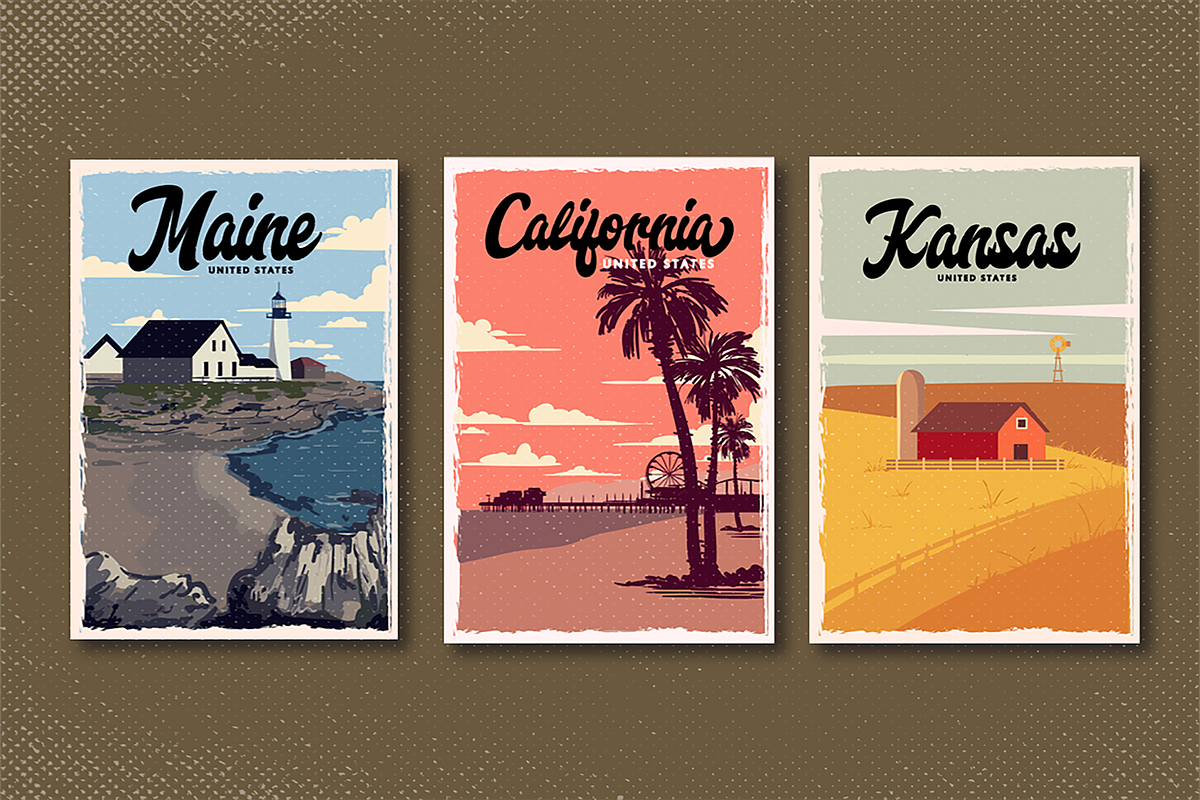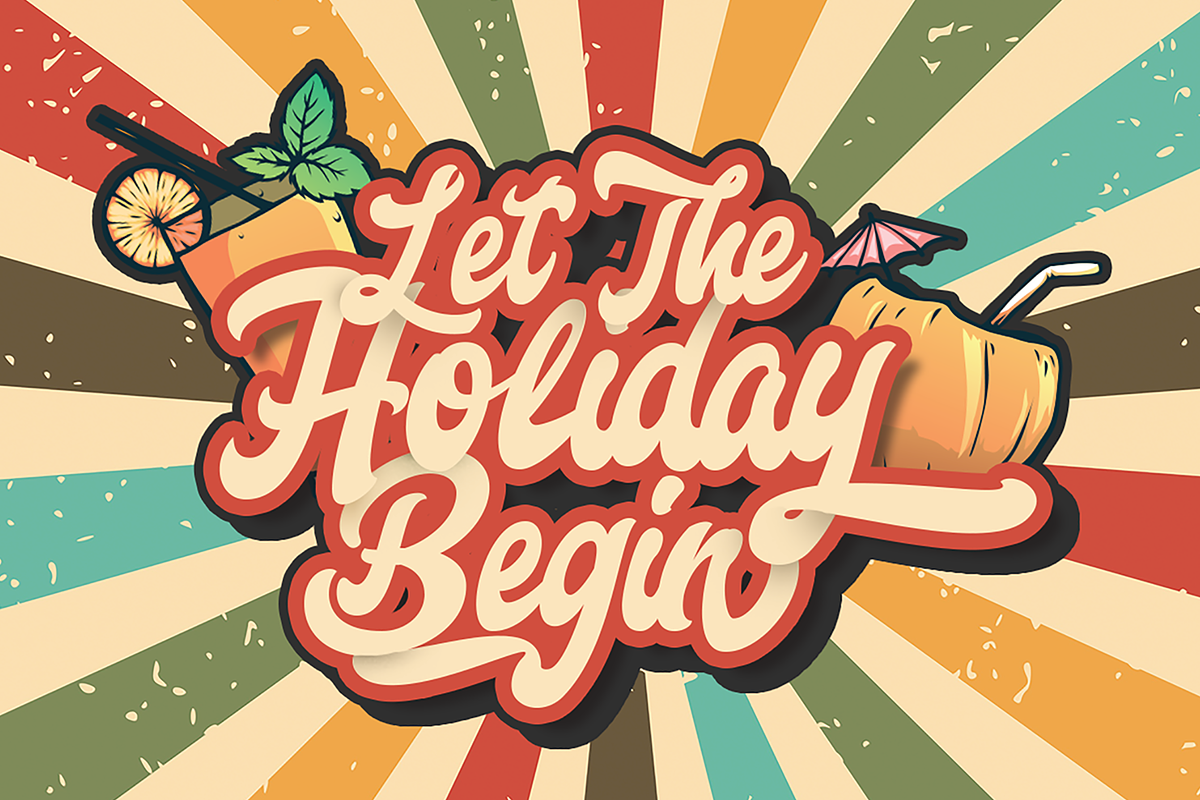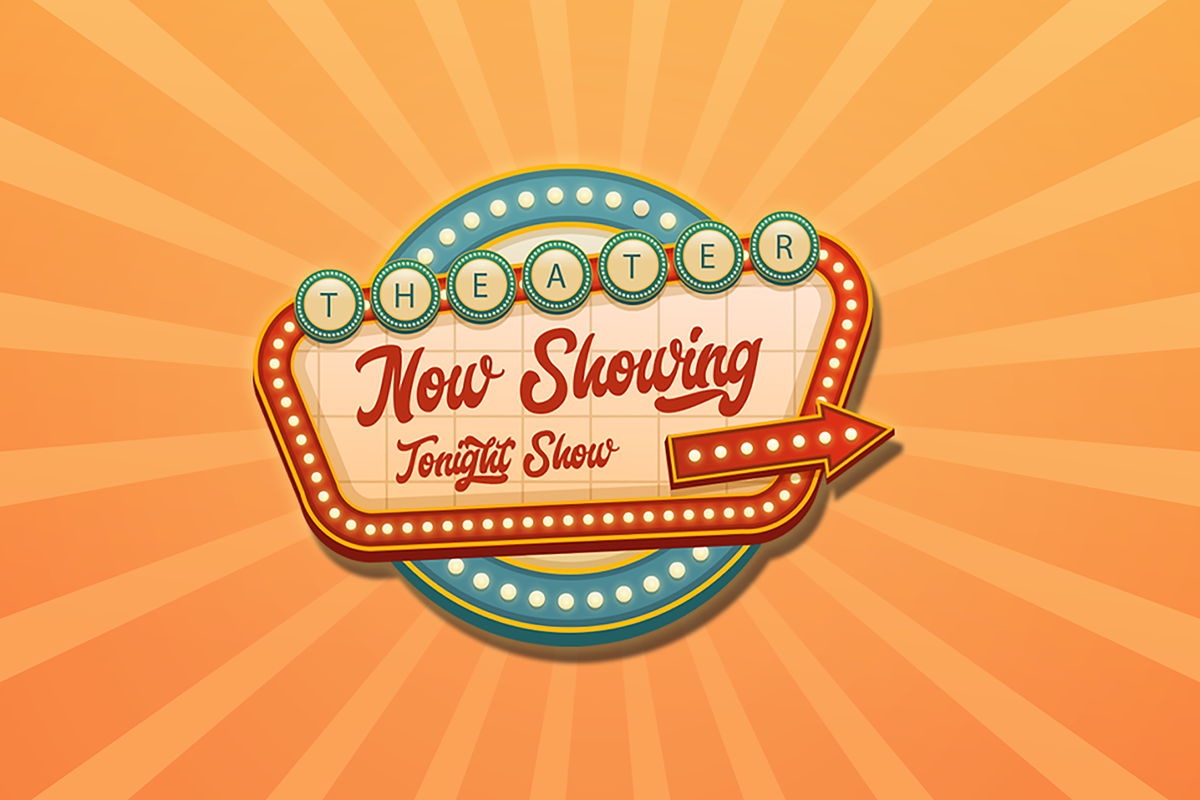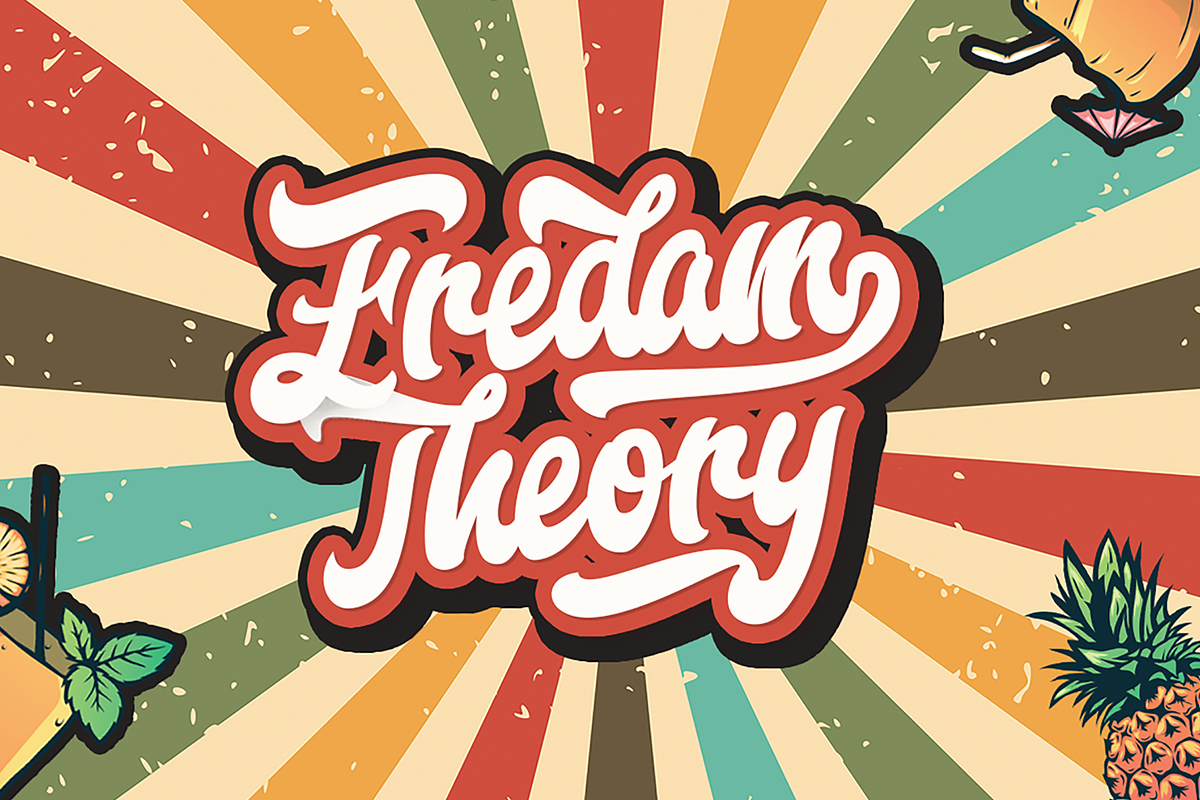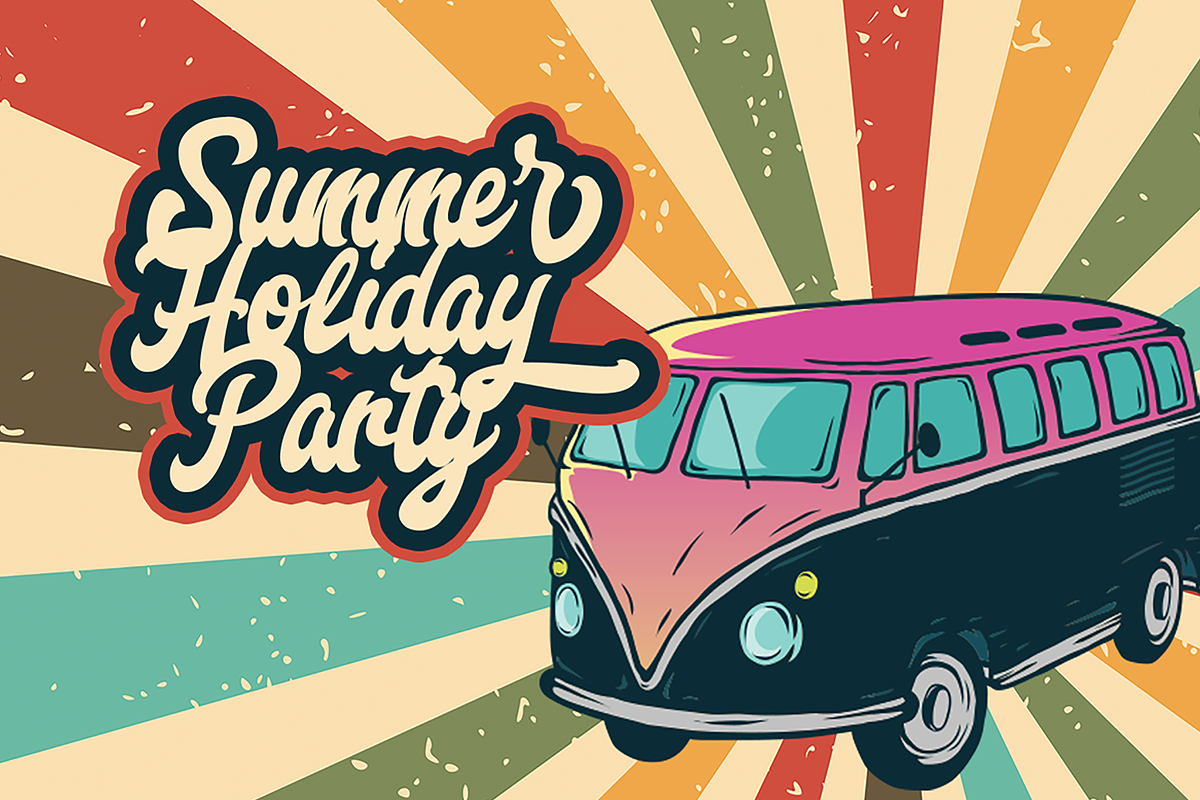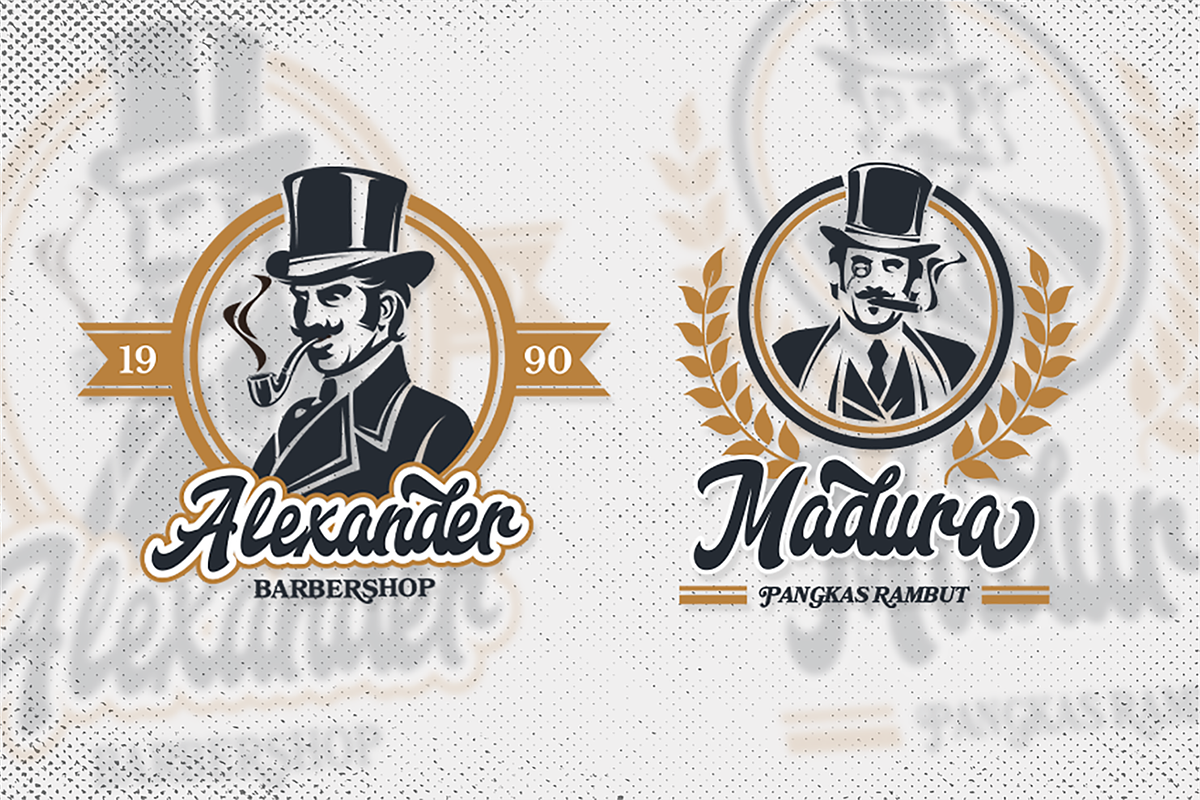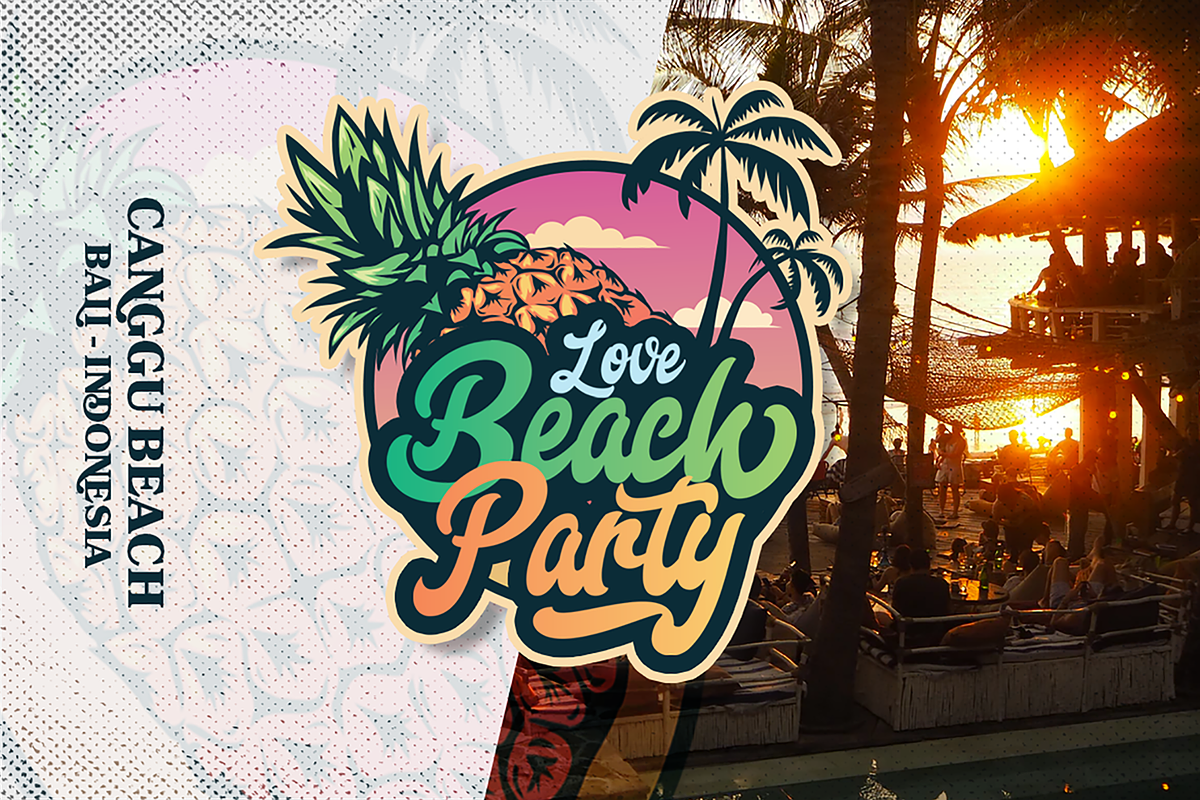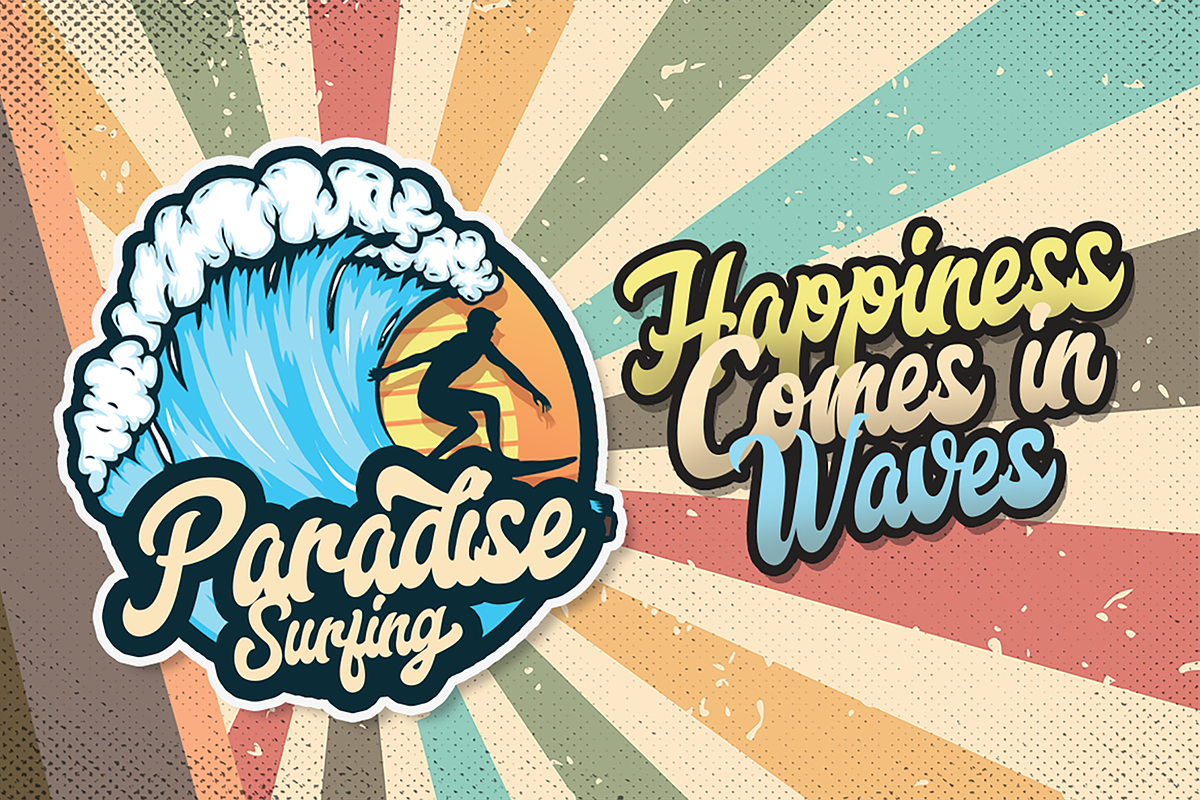
Fredam Theory - Retro Script Font
Introducing Fredam Theory - Retro Bold Script Font
Fredam Theory is a Retro bold script with Groovy style, unique design taste and combine with classic retro style of the 80s, trendy, vintage, and sporty. The Fredam Theory is perfect for retro lovers, besides this font is also perfect if used for brands such as: barbershop, motorcycle club, clothing, logo brand, coffee shop, shoe brands, hipster and many more.
- This Font Template contains Classy, Elegant, Creative, Cool and has a Unique Concept.
Fredam Theory - Retro Script Font by StringLabs fits naturally into Branding, posters, packaging, typography.